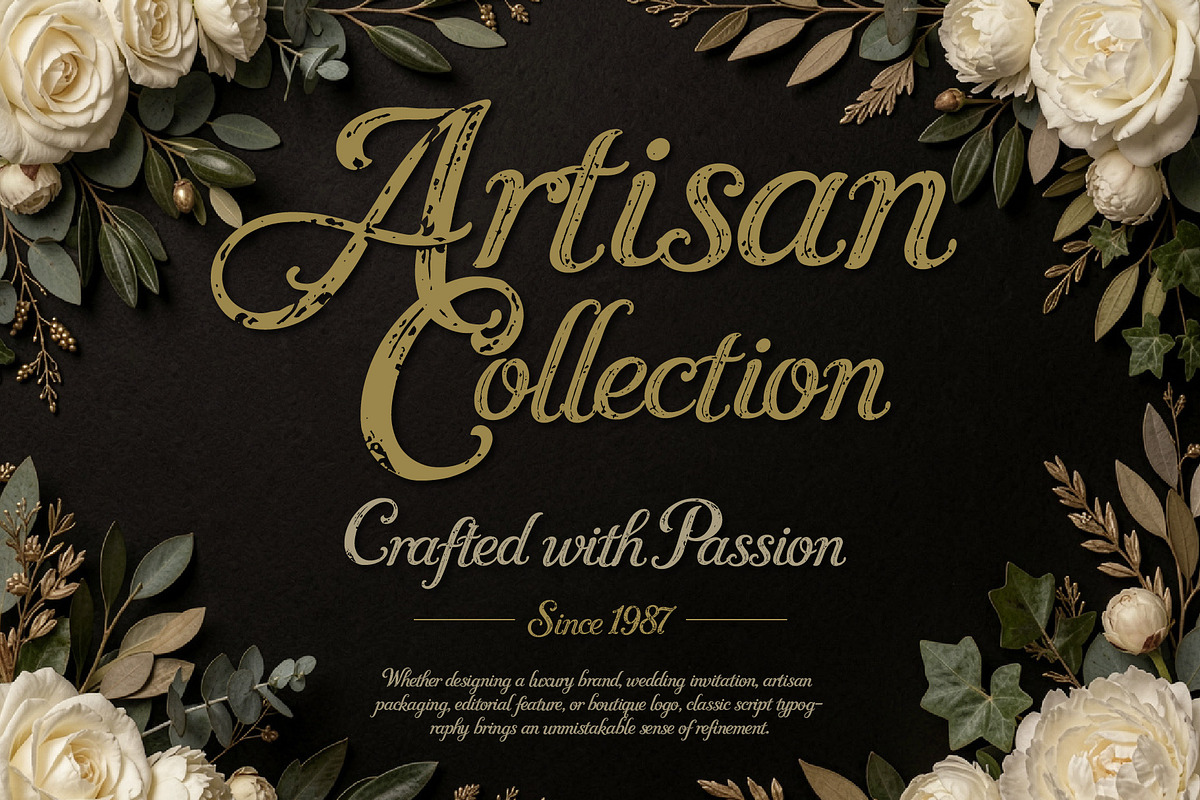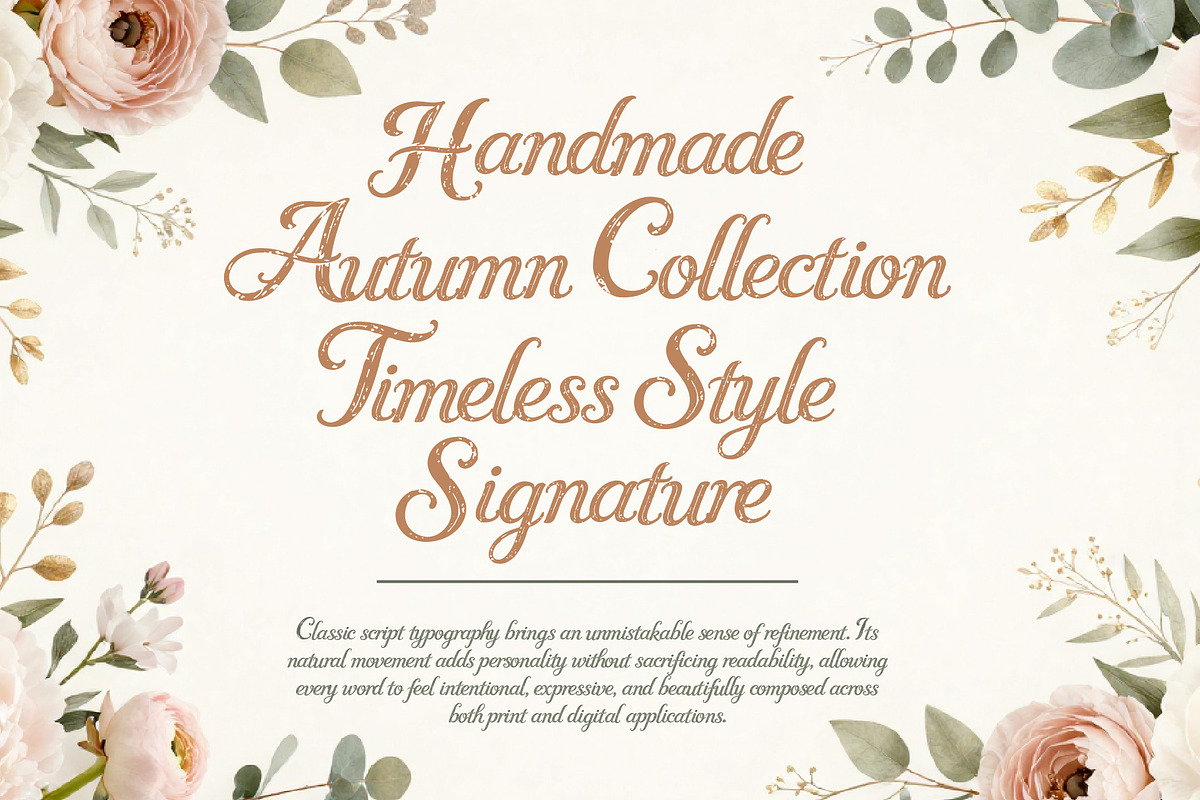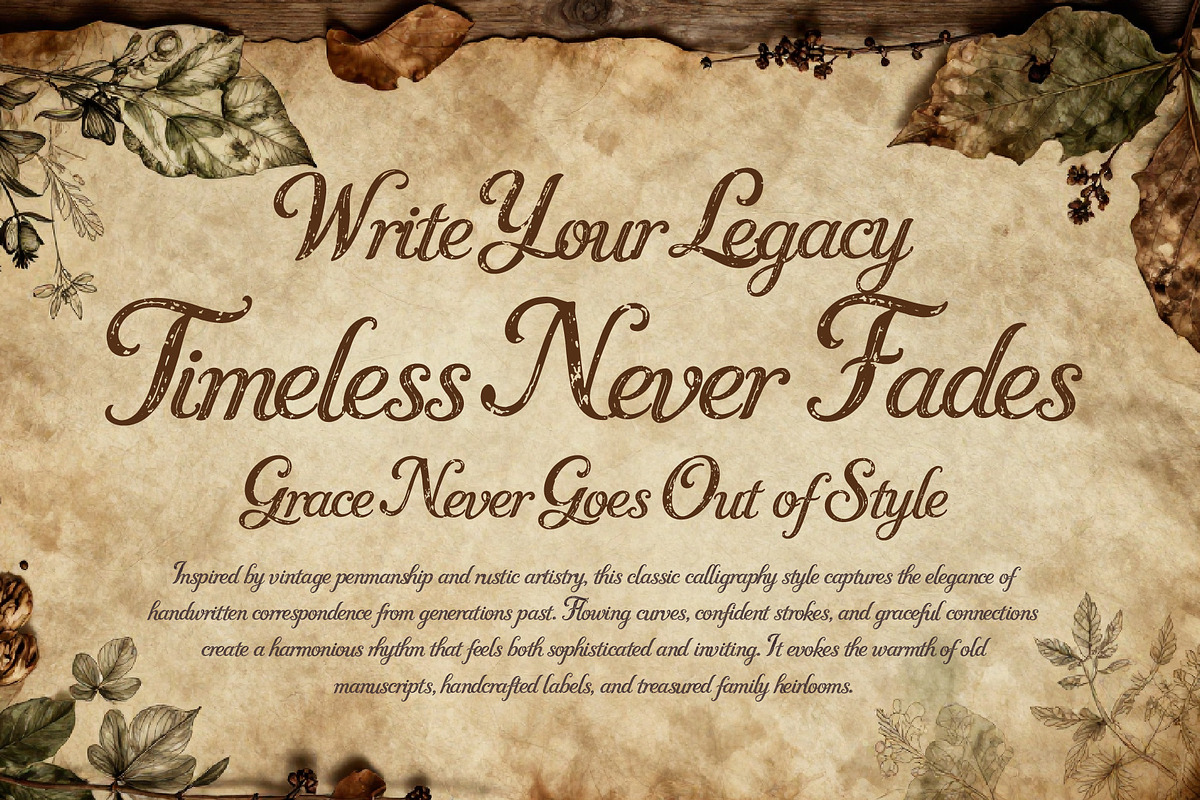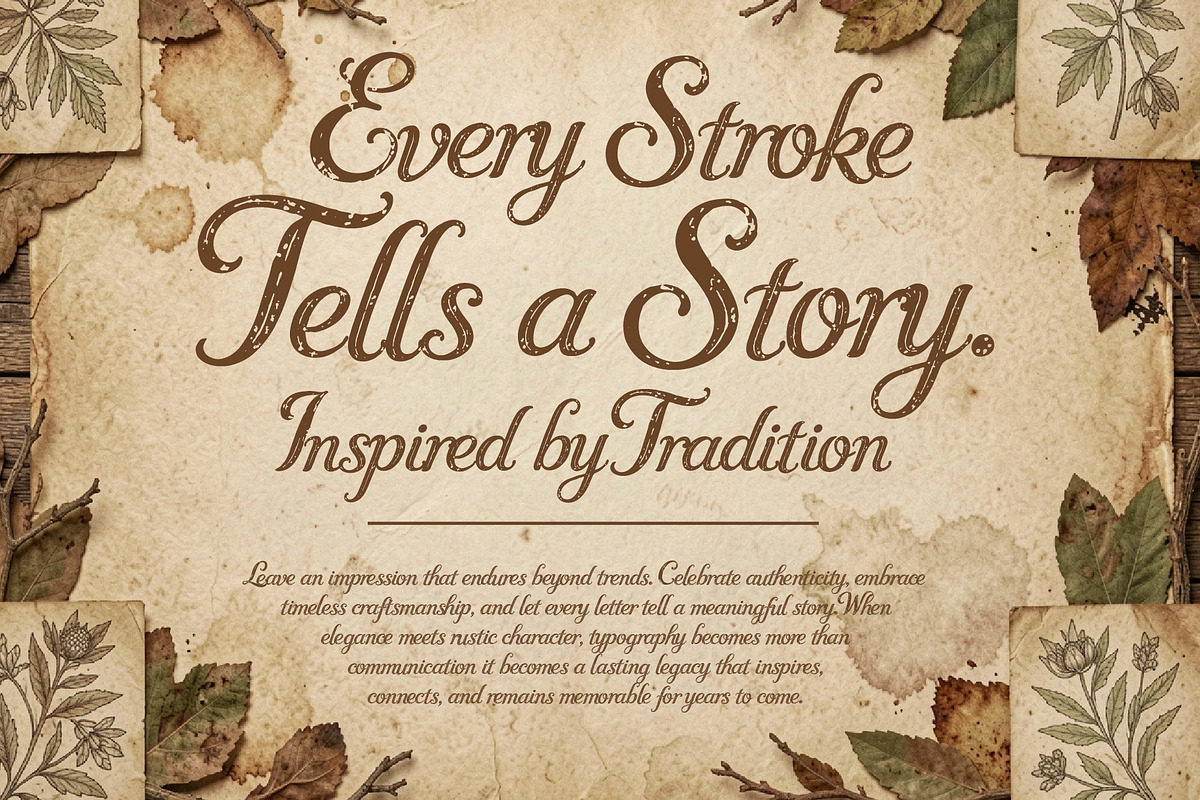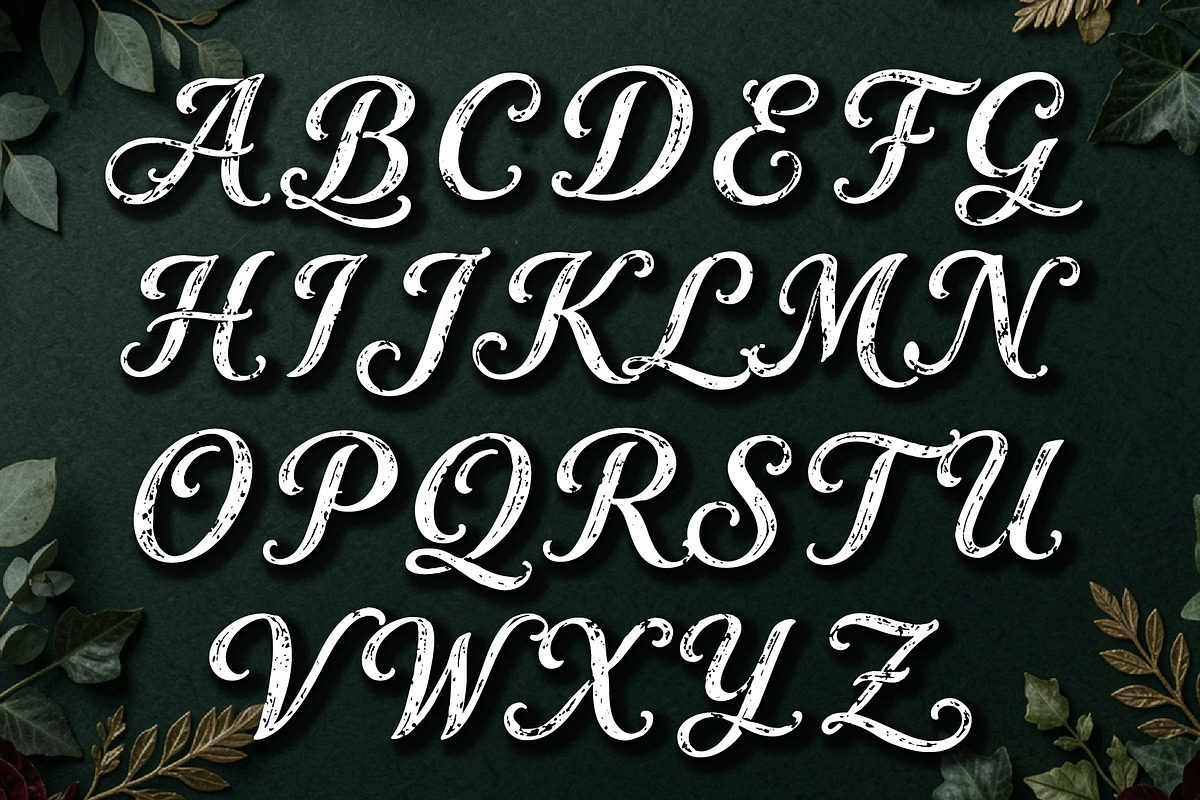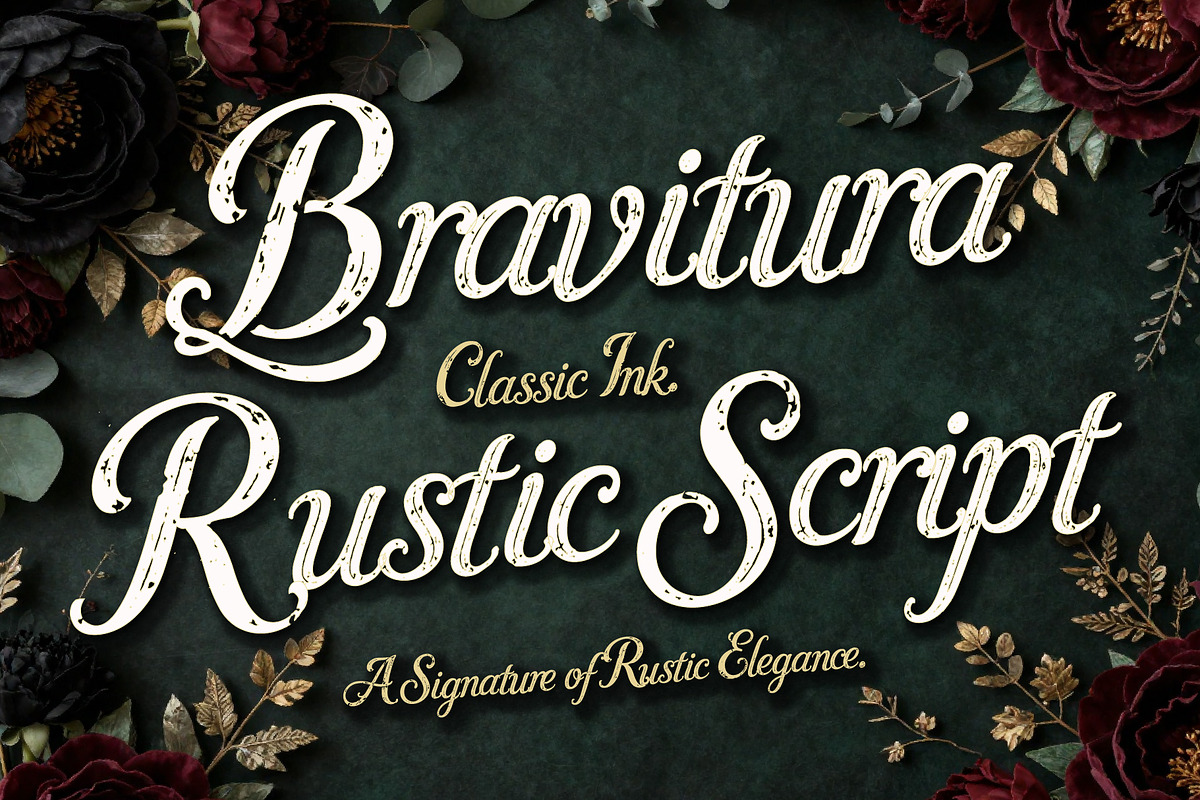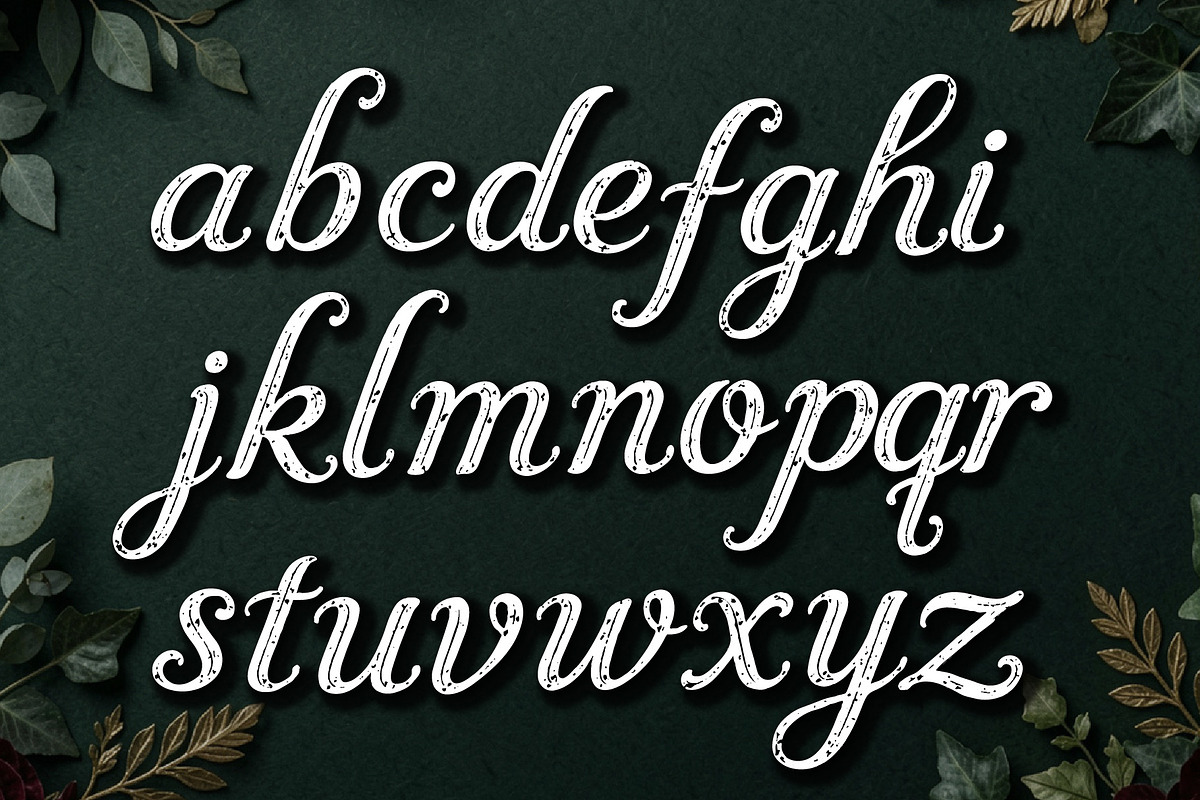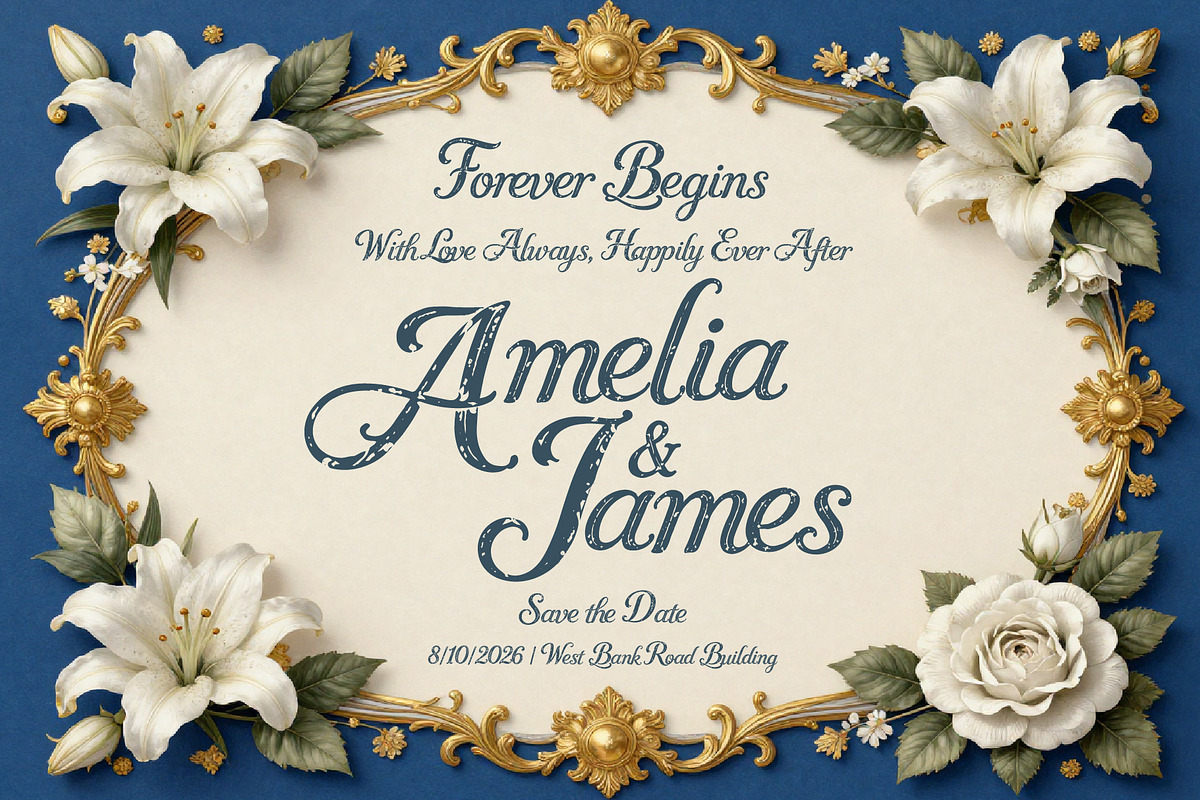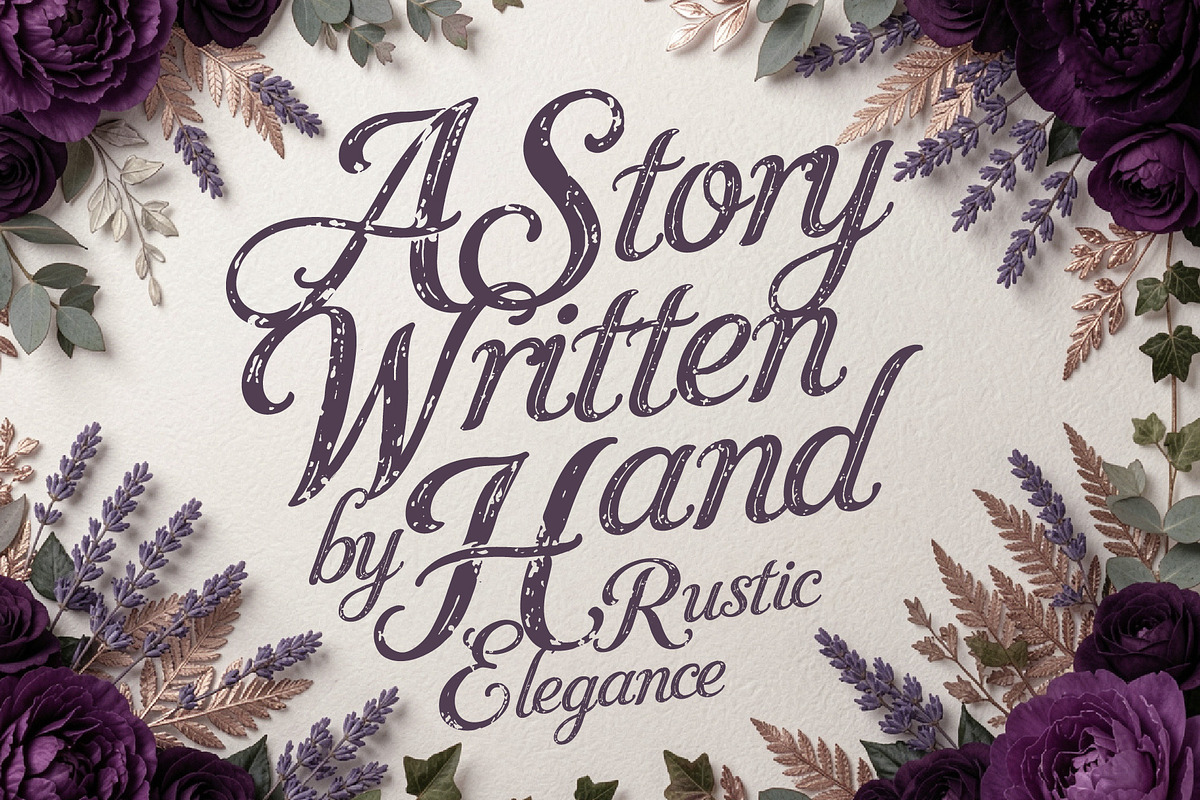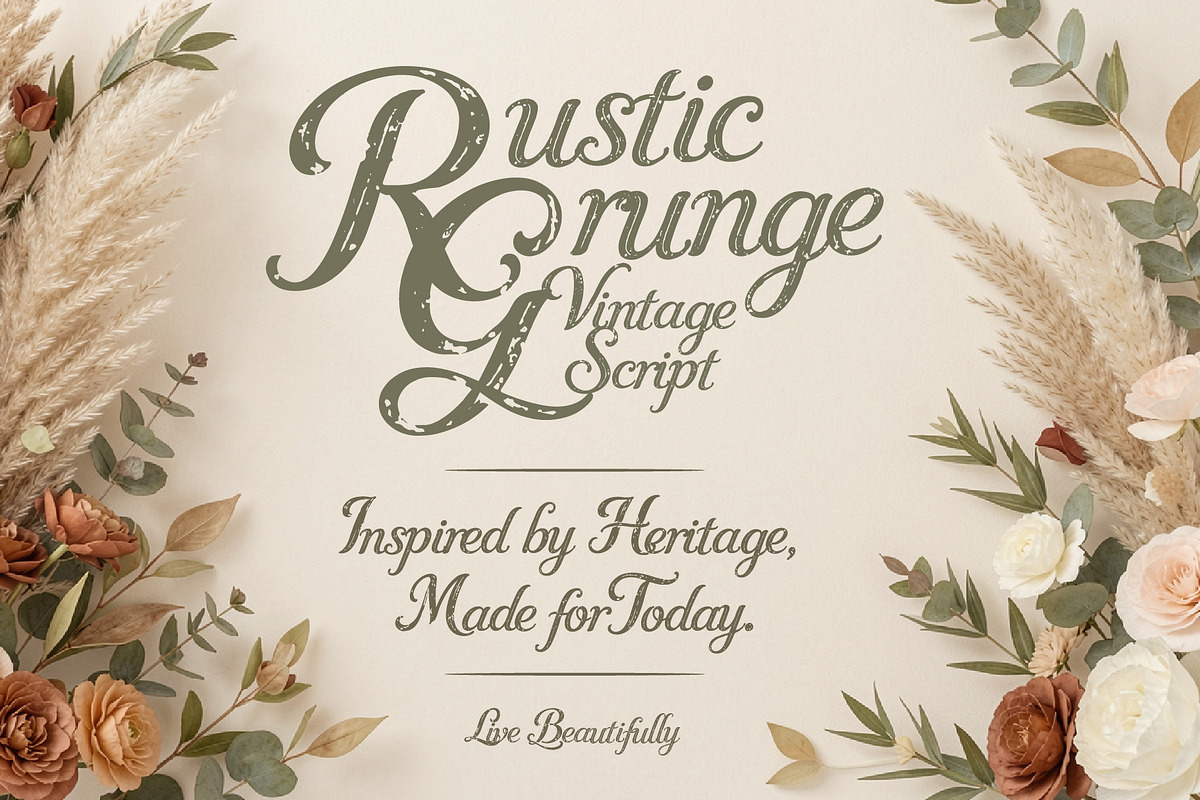
Bravitura Script - Rustic Elegance
Bravitura Script , Bring timeless elegance and handcrafted character into your designs with this classic rustic calligraphy script font. Inspired by vintage handwritten letters, antique signage, and traditional ink pen calligraphy, this typeface blends graceful flowing strokes with a naturally weathered personality.
Every letter is carefully crafted to create an authentic handcrafted appearance while maintaining excellent readability. Its warm, organic style makes it perfect for branding, logos, packaging, wedding stationery, invitations, product labels, editorial layouts, book covers, social media, café menus, artisan products, apparel, posters, and premium marketing materials.